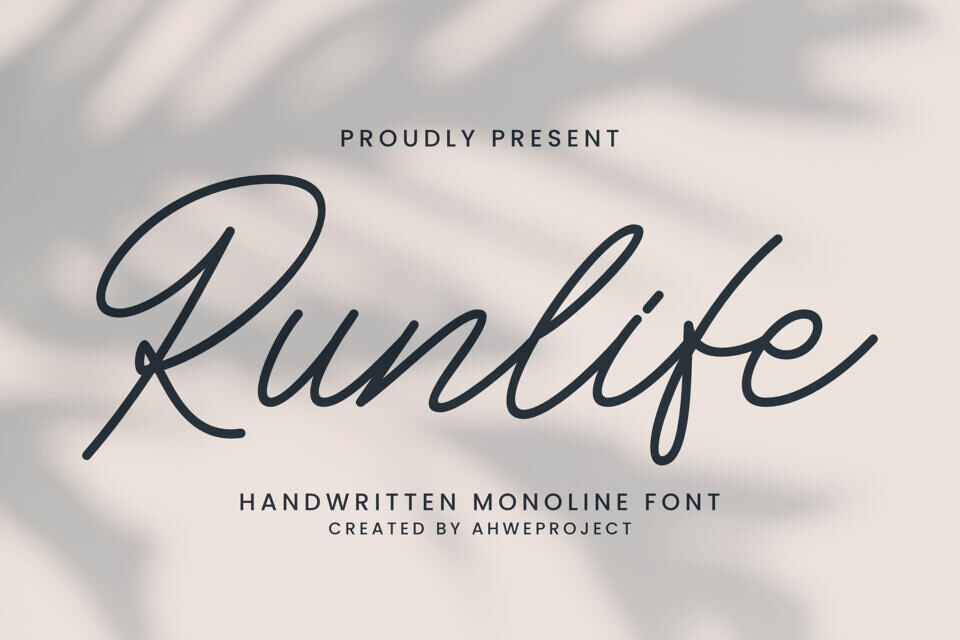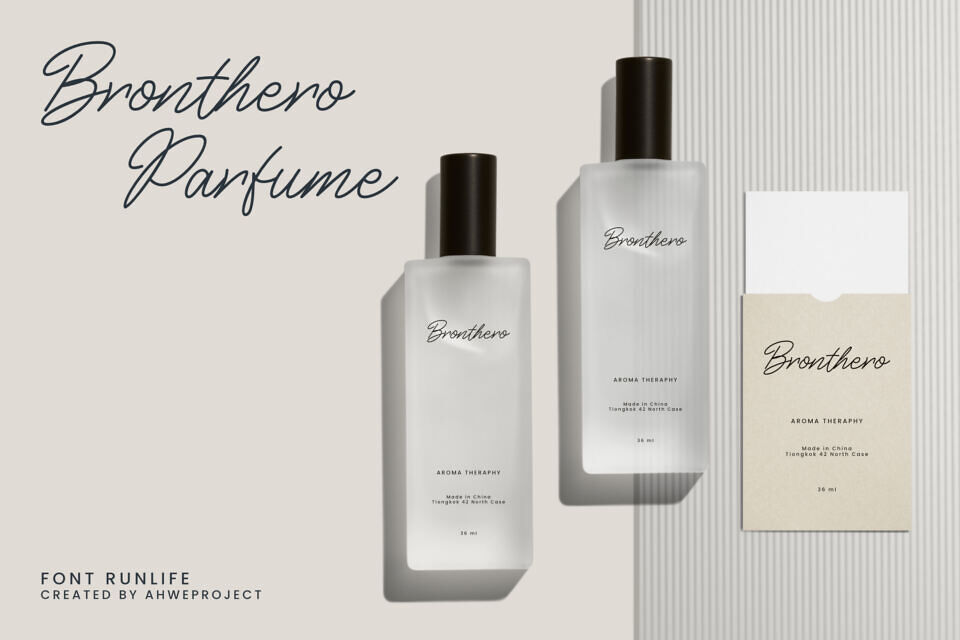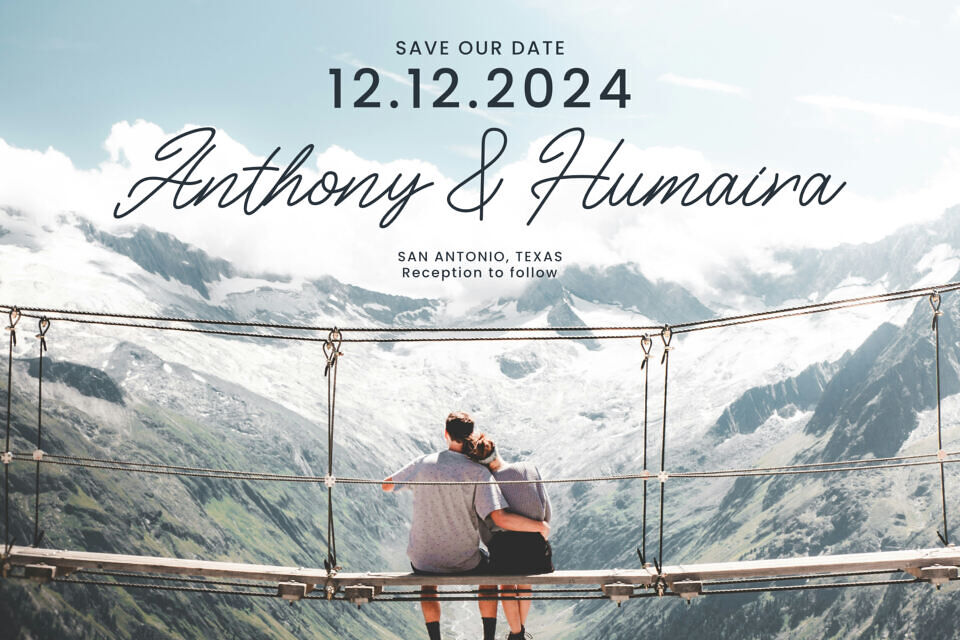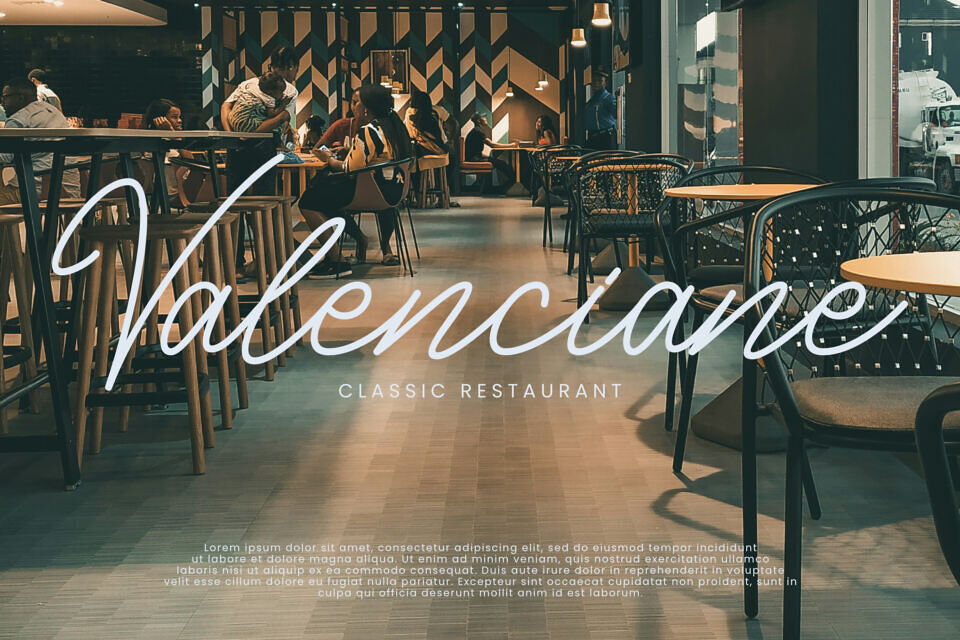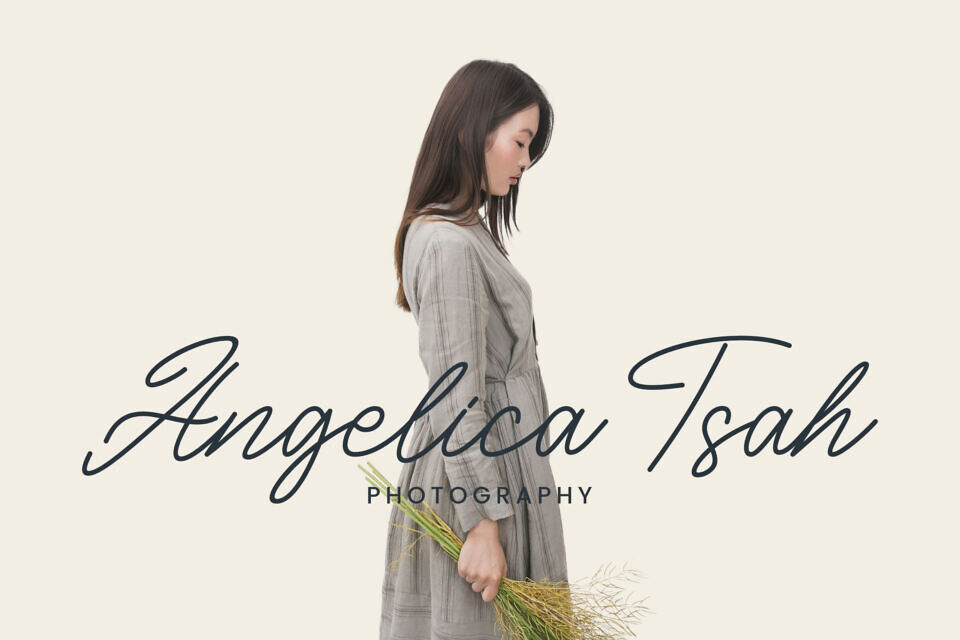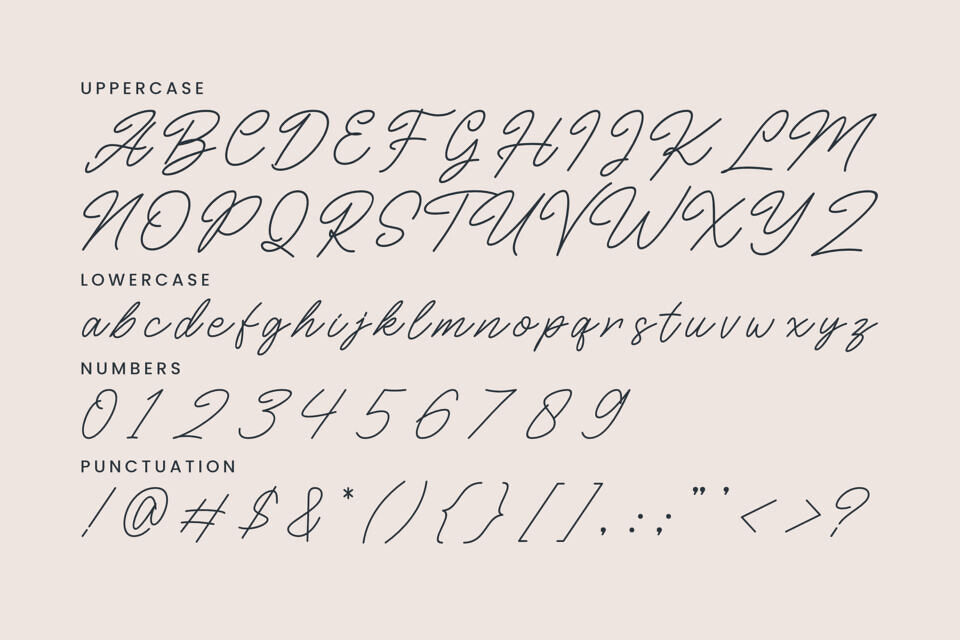
Immerse yourself in the captivating elegance of the Runlife Script. This sophisticated modern script font is an excellent choice for projects related to photography, signature styling, and branding. It artfully balances simplicity with strength, exuding an understated yet robust aesthetic.
With Runlife Script, you can effortlessly enhance your designs, adding a touch of class and contemporary sophistication to any project. This is more than just a font, it’s an invitation to express your creative flair. Explore the Runlife Script and let your creativity flow.